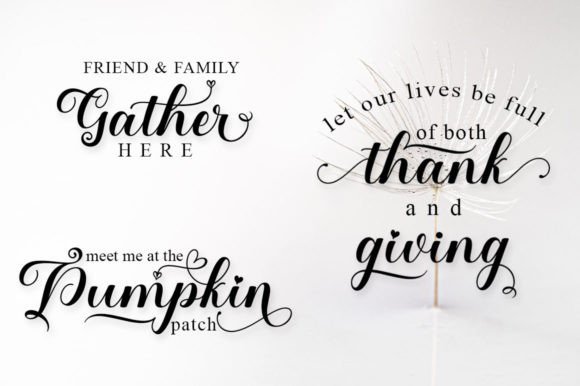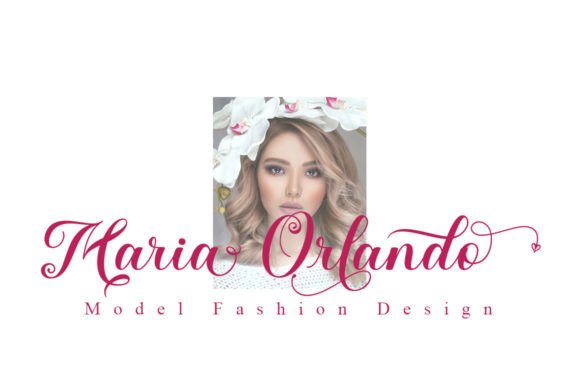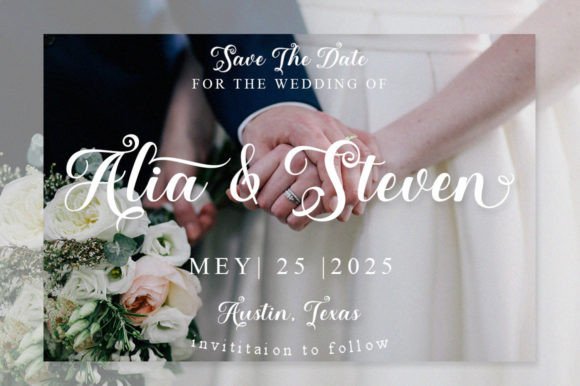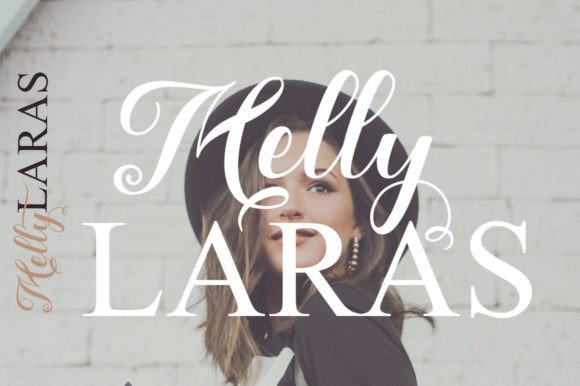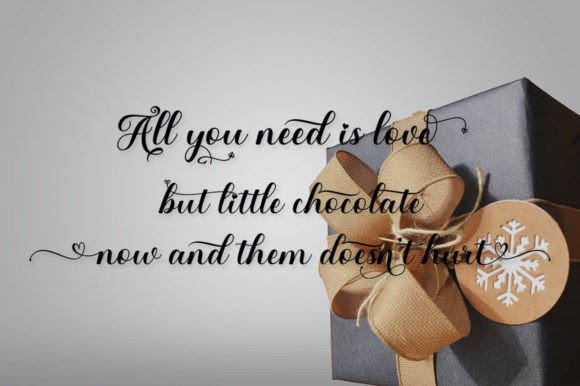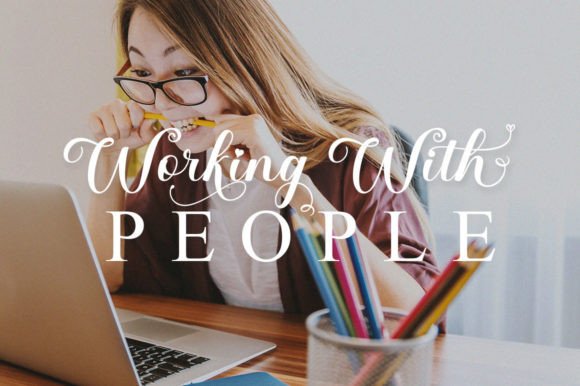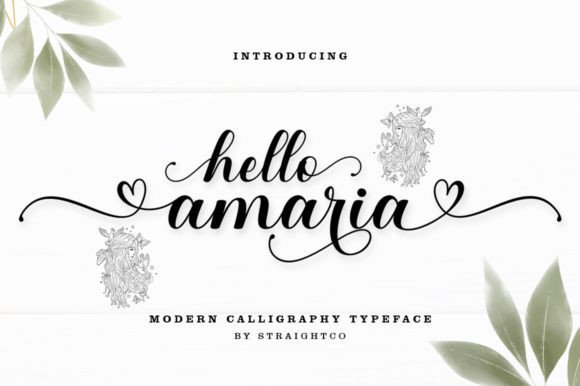
Hello Amaria Font: Elevate Your Designs with Modern Calligraphy
In the world of typography, few fonts manage to capture the essence of modern calligraphy as effortlessly as Hello Amaria. This beautiful, casual, and pretty font is designed with a stroke that adds a touch of elegance to any design project. Whether you’re a designer, crafter, or DIY enthusiast, Hello Amaria is a versatile font that can elevate your creations to new heights.
What is Hello Amaria Font?
Hello Amaria is a modern calligraphy design that boasts a unique and stylish aesthetic. Its casual yet sophisticated look makes it perfect for a wide range of applications, from logos and product packaging to wedding invitations, branding, headlines, signage, labels, signatures, book covers, posters, quotes, and more.
Key Features of Hello Amaria Font
• PUA Encoding: Hello Amaria font is PUA encoded, which means you can access all glyphs and swashes effortlessly. This feature allows for greater flexibility and creativity in your designs.
• Stroke Style: The font features a beautiful stroke that adds a touch of elegance to any design.
• Casual and Pretty: Hello Amaria’s casual and pretty design makes it perfect for projects that require a modern and approachable look.
• Versatility: This font can be used for various purposes, making it a great addition to any designer’s toolkit.
Uses of Hello Amaria Font
Hello Amaria’s versatility is one of its greatest strengths. Here are some of the many ways you can use this beautiful font:
• Logos: Create stunning logos for your business or brand with Hello Amaria’s unique and stylish design.
• Product Packaging: Add a touch of elegance to your product packaging with this beautiful font.
• Wedding Invitations: Make your wedding invitations truly special with Hello Amaria’s romantic and sophisticated design.
• Branding: Establish a strong brand identity with this font’s modern and approachable look.
• Headlines: Create eye-catching headlines for your blog posts, articles, or social media posts with Hello Amaria’s stylish design.
• Signage: Use this font for signage, banners, or posters to grab attention and make a lasting impression.
• Labels and Signatures: Add a personal touch to your labels and signatures with Hello Amaria’s elegant design.
• Book Covers: Create stunning book covers with this font’s unique and stylish design.
• Posters and Quotes: Use Hello Amaria to create inspiring posters and quotes that will leave a lasting impression.
Why Choose Hello Amaria Font?
With so many fonts available, why choose Hello Amaria? Here are a few reasons why this font stands out:
• Unique Design: Hello Amaria’s modern calligraphy design is unlike any other font, making it perfect for designers who want to stand out.
• Easy to Use: This font is PUA encoded, making it easy to access all glyphs and swashes.
• Versatile: Hello Amaria can be used for a wide range of projects, making it a great addition to any designer’s toolkit.
• Elegant and Sophisticated: This font’s elegant and sophisticated design makes it perfect for projects that require a touch of luxury.